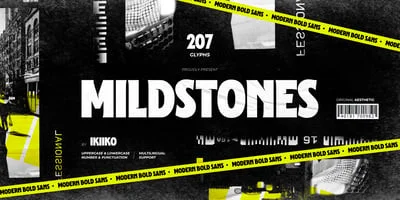
Mildstones Font
Mildstones Font is perfect for milestone celebration materials, personal achievement awards, graduation ceremony graphics, anniversary commemoration designs, life coaching branding, motivational milestone tracking, personal development journals, achievement portfolio covers, progress celebration events, and any meaningful project that honors the significant moments and gentle victories that mark our journey through life's important stages.
What makes Mildstones Font exciting is its gentle significance that captures the quiet pride of personal achievements and the understated elegance of meaningful life moments. This typeface embodies the essence of gradual progress with refined letterforms that suggest the steady accumulation of wisdom and the subtle beauty of growth that happens one step at a time. The font's contemplative character makes it perfect for brands and projects that want to communicate progress, reflection, and the profound importance of acknowledging every milestone along life's journey.
The Mildstones Font family includes multiple weights and commemorative variations, featuring light, regular, and bold versions along with decorative elements and alternate characters inspired by milestone markers and achievement symbols. This comprehensive collection allows designers to create thoughtfully celebratory typography that maintains the font's signature gentle character while providing flexibility for various personal development and commemoration design applications.
When exploring authentic milestone typography, Mildstones Font offers designers an exceptional opportunity to work with a typeface that genuinely captures the spirit of personal growth and meaningful achievement. This font demonstrates innovative design thinking by incorporating the steady progression and quiet confidence that define both personal milestones and the journey of continuous self-improvement and life development.
Professional designers appreciate Mildstones Font for its ability to instantly communicate personal significance and thoughtful reflection across various personal development and celebration platforms. The font's gentle character makes it particularly effective for life coaches, educational institutions, and personal development brands seeking to establish connections with audiences who value steady progress and meaningful personal growth.
The universal appeal of Mildstones Font lies in its perfect representation of personal achievement and life progress that resonates with people at every stage of their personal journey. This typeface serves as a celebration of the gradual victories and meaningful moments that define our individual paths toward becoming our best selves.
For creative professionals working with personal development and celebration brands, Mildstones Font represents the ultimate typography solution that brings authentic milestone significance and gentle achievement celebration to any application, ensuring designs reflect the thoughtful progress and meaningful victories that define the most important moments in our personal growth and life development.